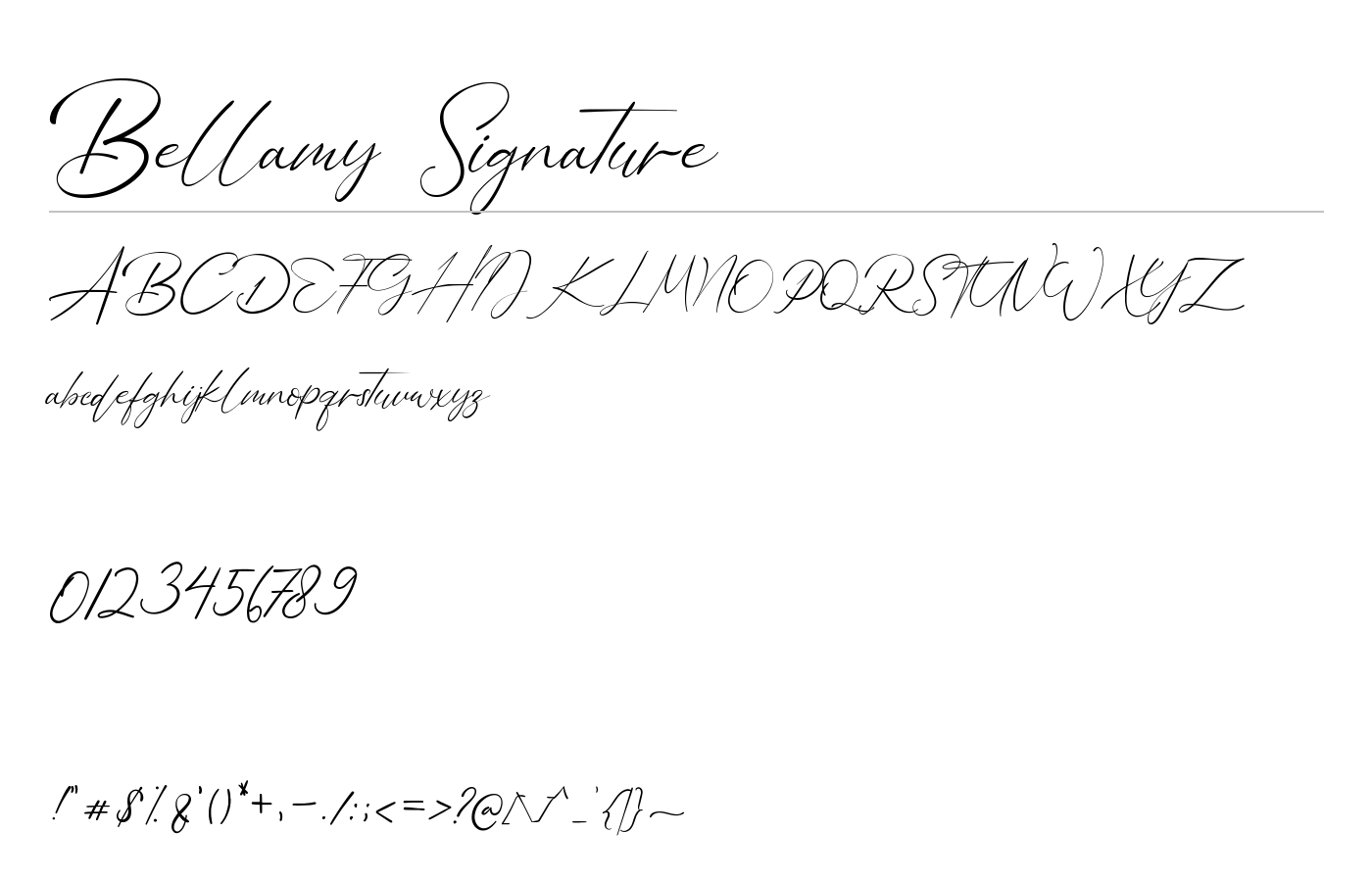
Bellamy Signature Font is a delicate and elegant script typeface that mimics natural handwriting with graceful, flowing lines. Its thin strokes and tall, slender letterforms give it a refined and sophisticated feel, making it perfect for luxury branding, invitations, and personal logos where a touch of elegance and individuality is desired. This font works beautifully in upscale designs that require a stylish, handwritten appearance without sacrificing readability.
Bellamy Signature Font